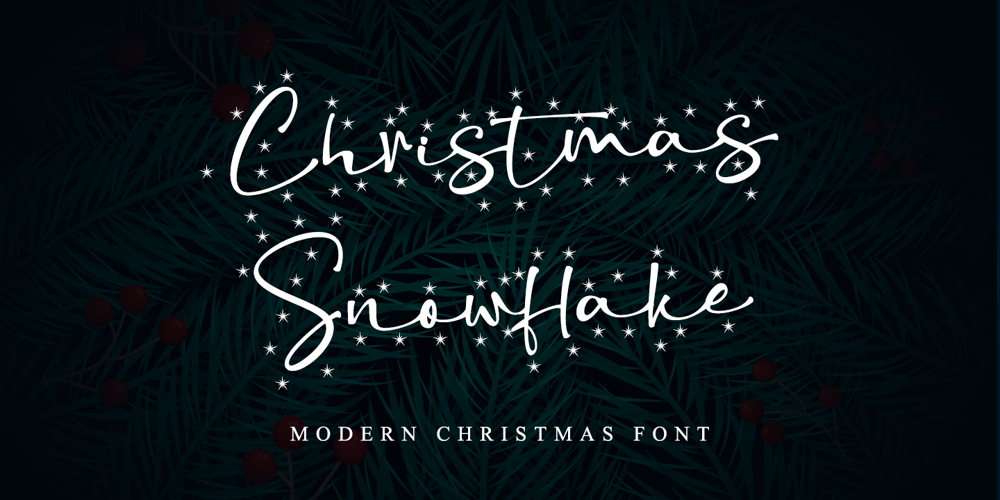
Christmas Snowflake Font Family was designed by Stefani Tri Rosa Setiati Christiana and published by Stefani Letter. Christmas Snowflake contains 2 styles and family package options. Christmas Snowflake is a friendly, fresh, rich, and beautiful handwritten font. It is ideal for holiday-themed greeting cards, invitations, logotype, branding, stationery, poster, and any project that requires a beautiful touch. Fall in love with its incredibly distinct and timeless style and use it to create spectacular designs! This font is PUA encoded which means you can access all of the glyphs.